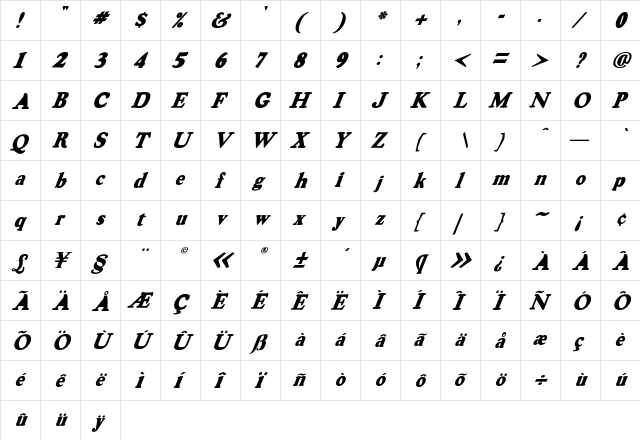
OswaldGrey-Italic Regular
Design Context for OswaldGrey-Italic Typeface
OswaldGrey-Italic offers clean, dependable letterforms without strong stylistic allegiance, making it a practical choice for designers who need flexibility. The dynamic lean of this cut emphasises speed and emphasis in any layout.
Pro Tip: Use OswaldGrey-Italic for emphasis, pull quotes, and subheadings where its slanted energy can add rhythm to the layout.